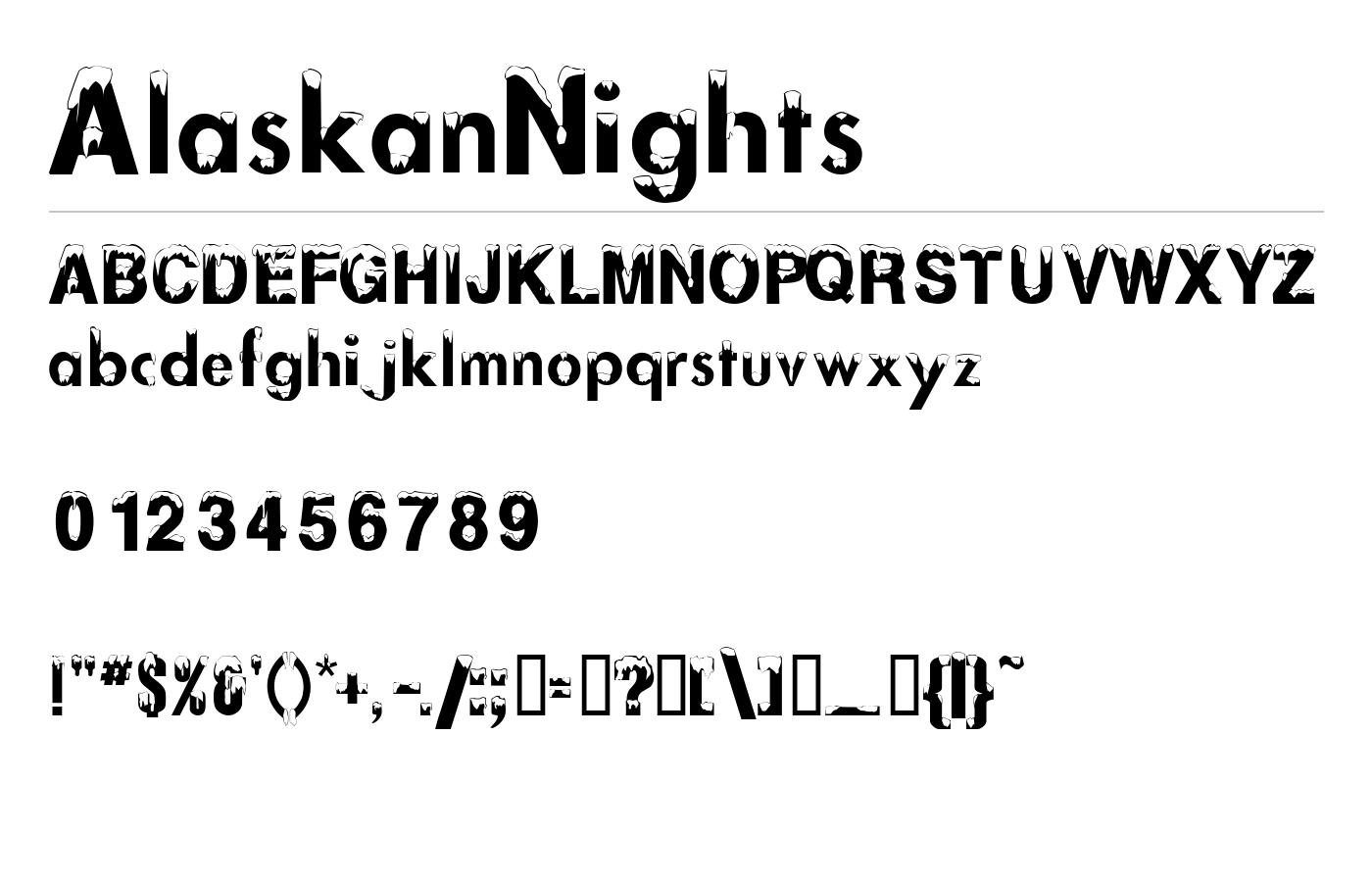
AlaskanNights is a bold, playful sans serif font with a strong, condensed structure and decorative snow-capped details that evoke a wintry, alpine atmosphere. Its sturdy letterforms and high contrast between the black base and white snow accents make it perfect for eye-catching headlines, seasonal branding, and festive packaging that seek to convey a fun, cozy, and adventurous mood. This font works especially well in designs related to winter holidays, outdoor activities, and cold-weather themes where a spirited and distinctive look is desired.
AlaskanNights Font
About AlaskanNights Font